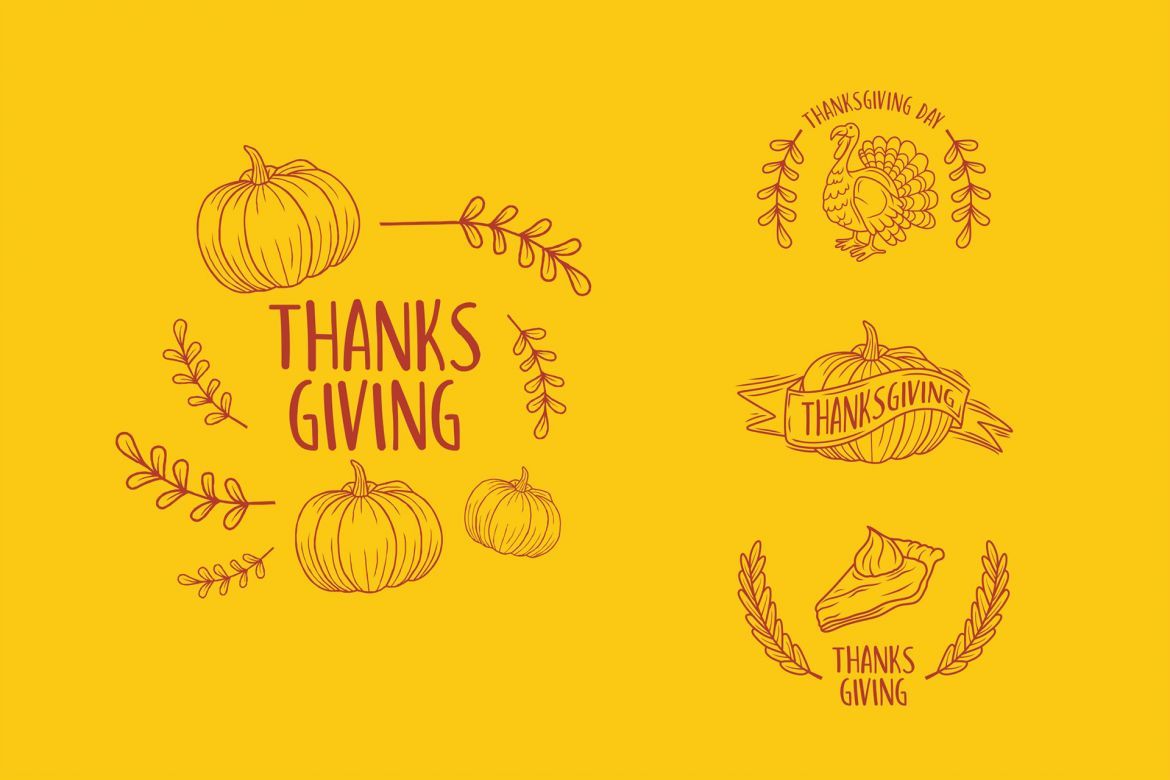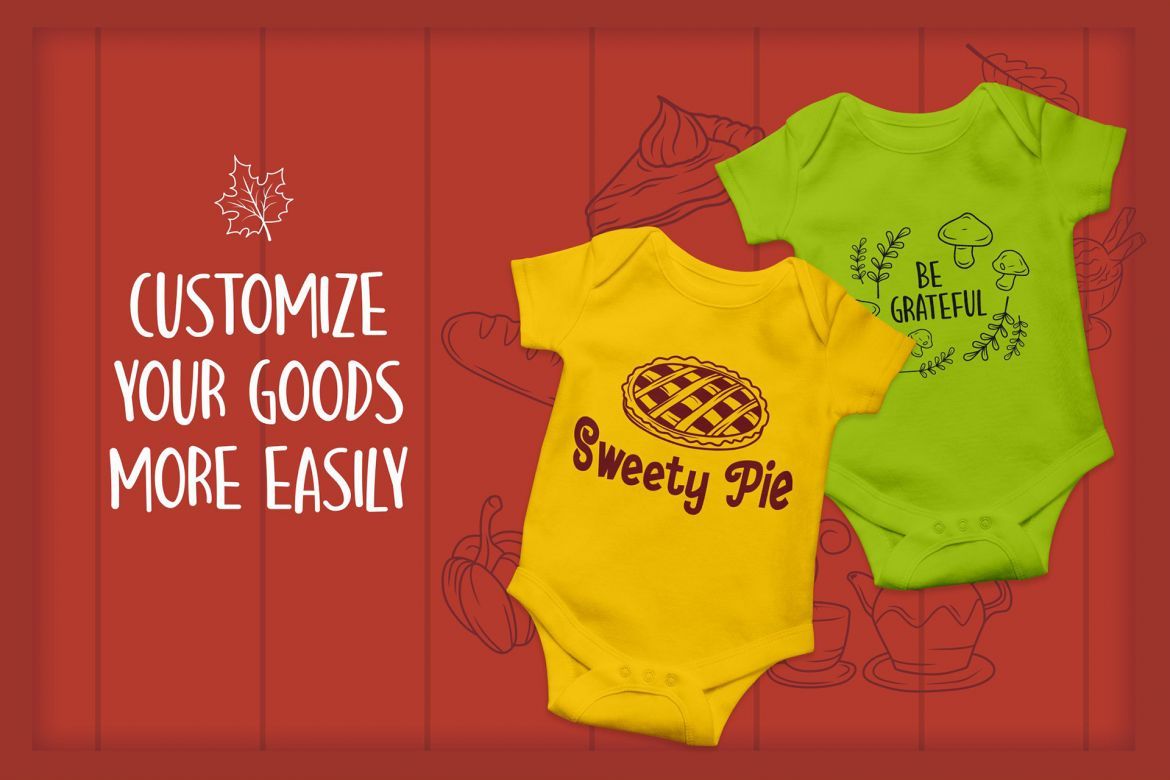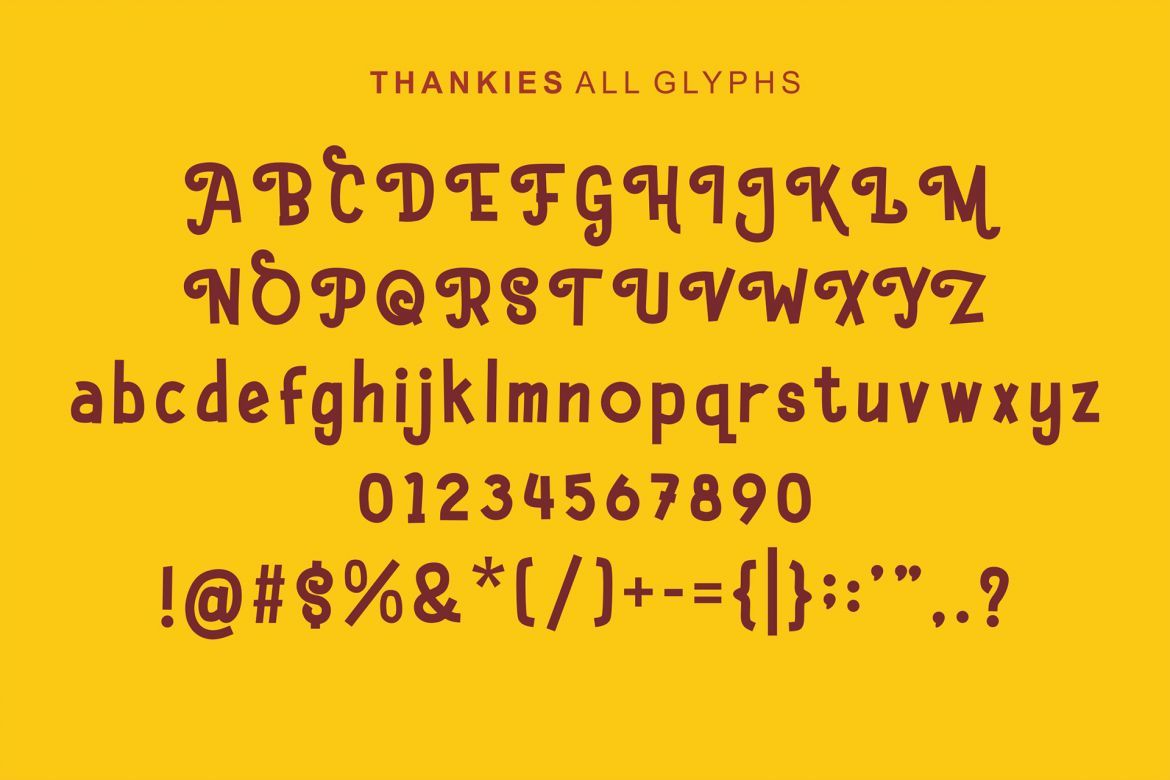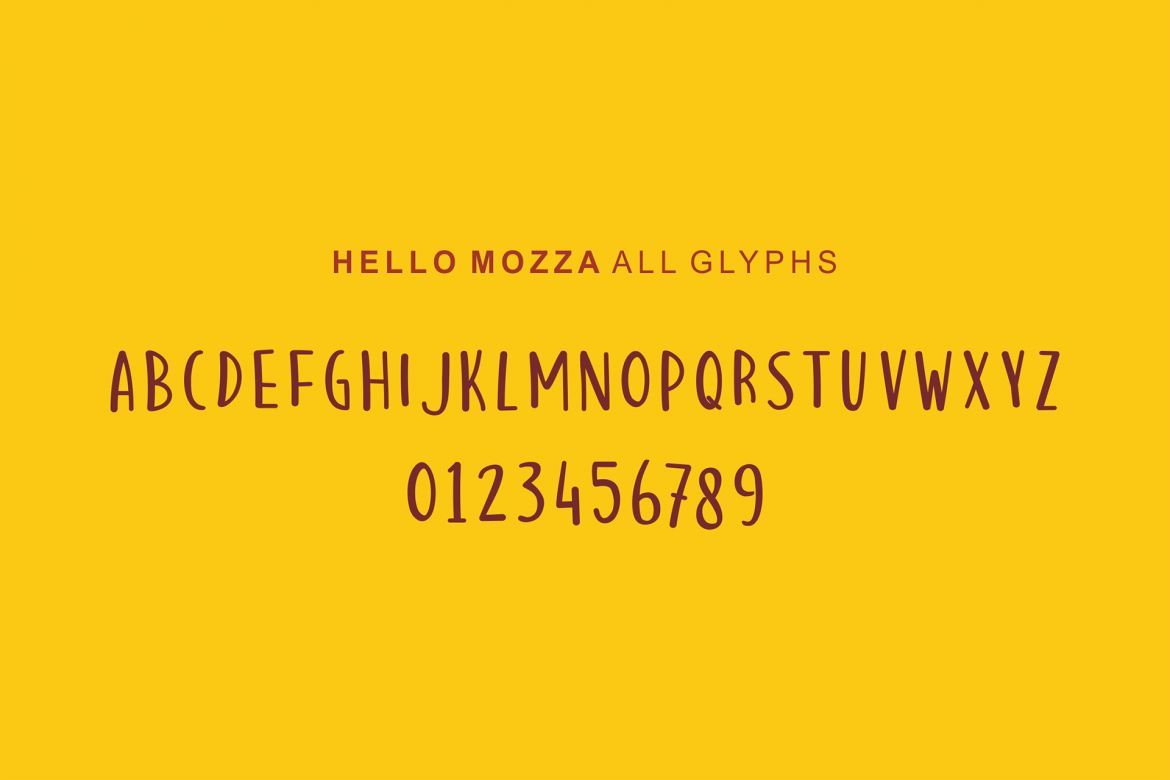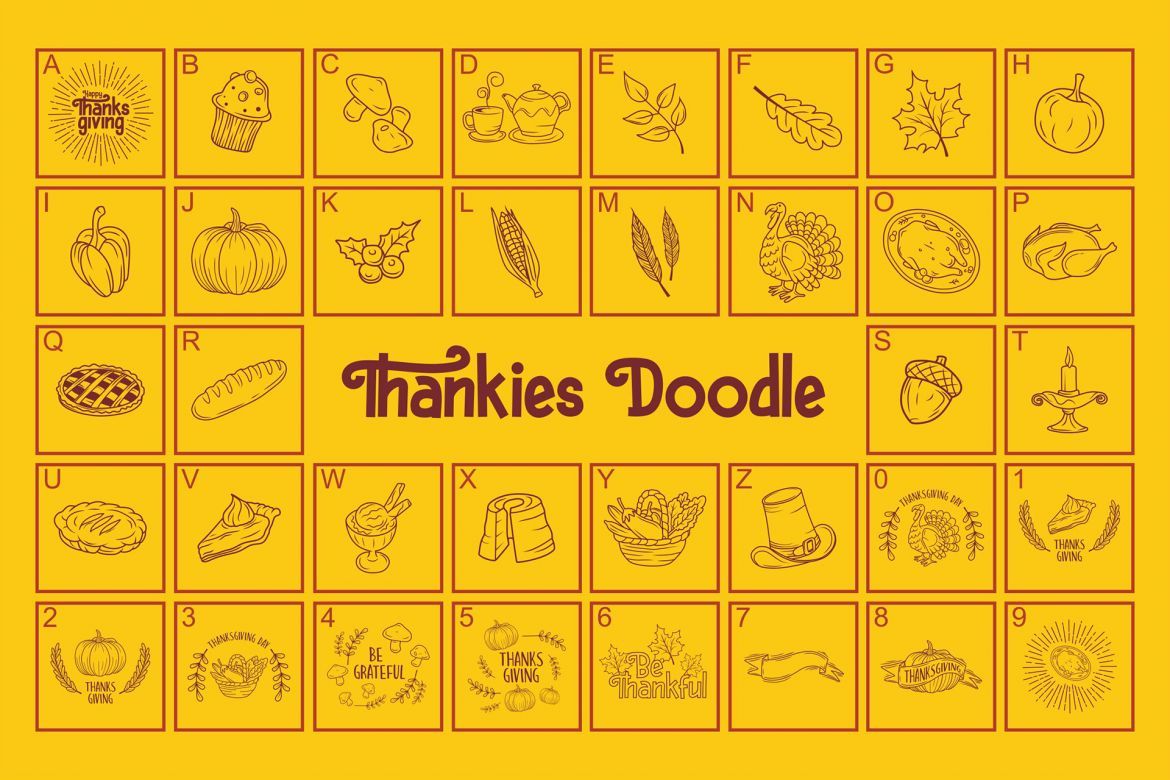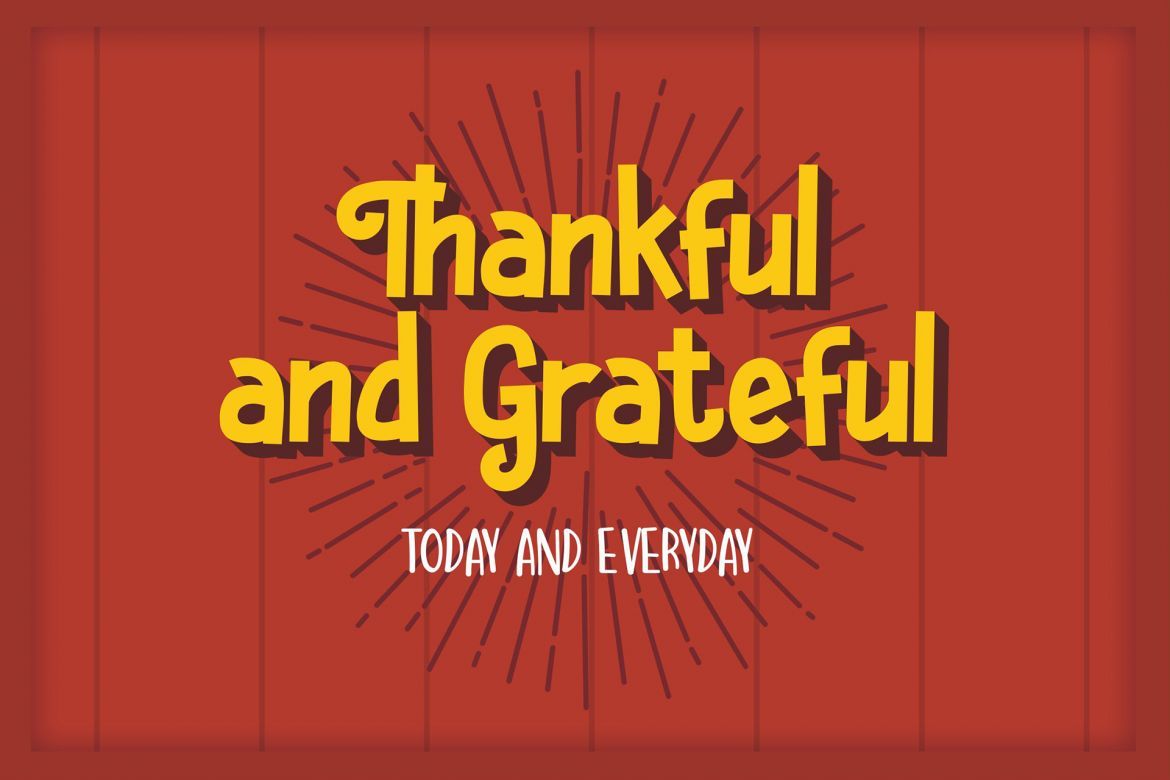
Hello Thankies Font
The Hello Thankies is a fancy font duo inspired by the warmth of a thanksgiving moment, complemented by thanksgiving special doodle to make your design more unique
Hello Thankies includes 2 fonts + 1 font doodle (dingbat)
• Thankies
• Hello Mozza
• Thankies Doodle
Hello Thankies works great in any branding, posters, clothing, especially your thanksgiving stuff.